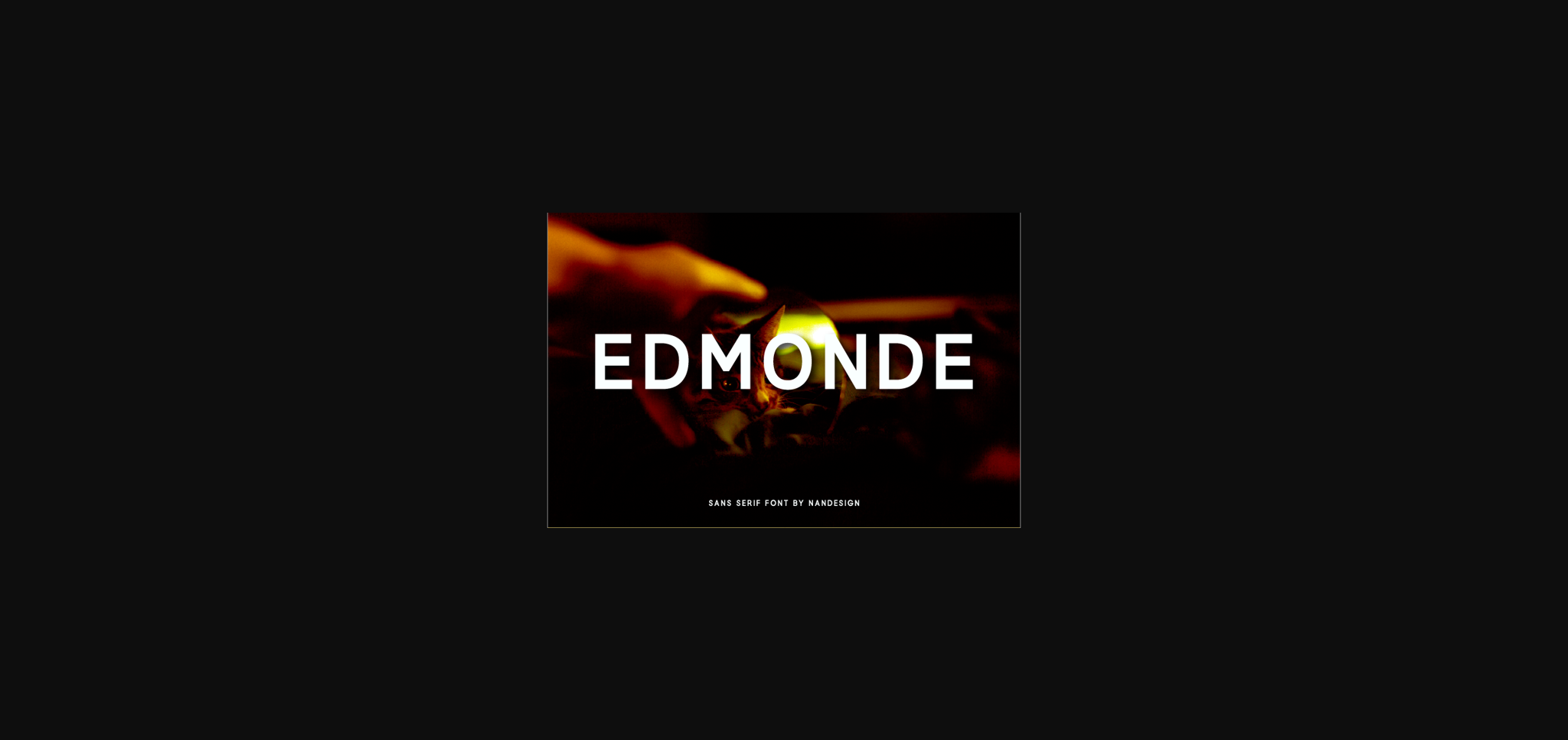
Edmonde Font
About Edmonde Font
Edmonde is a simple and versatile sans serif font, created to complement every project you’re currently working on.
Use it to make beautiful headings, gorgeous invitations, stunning logos, and so much more!